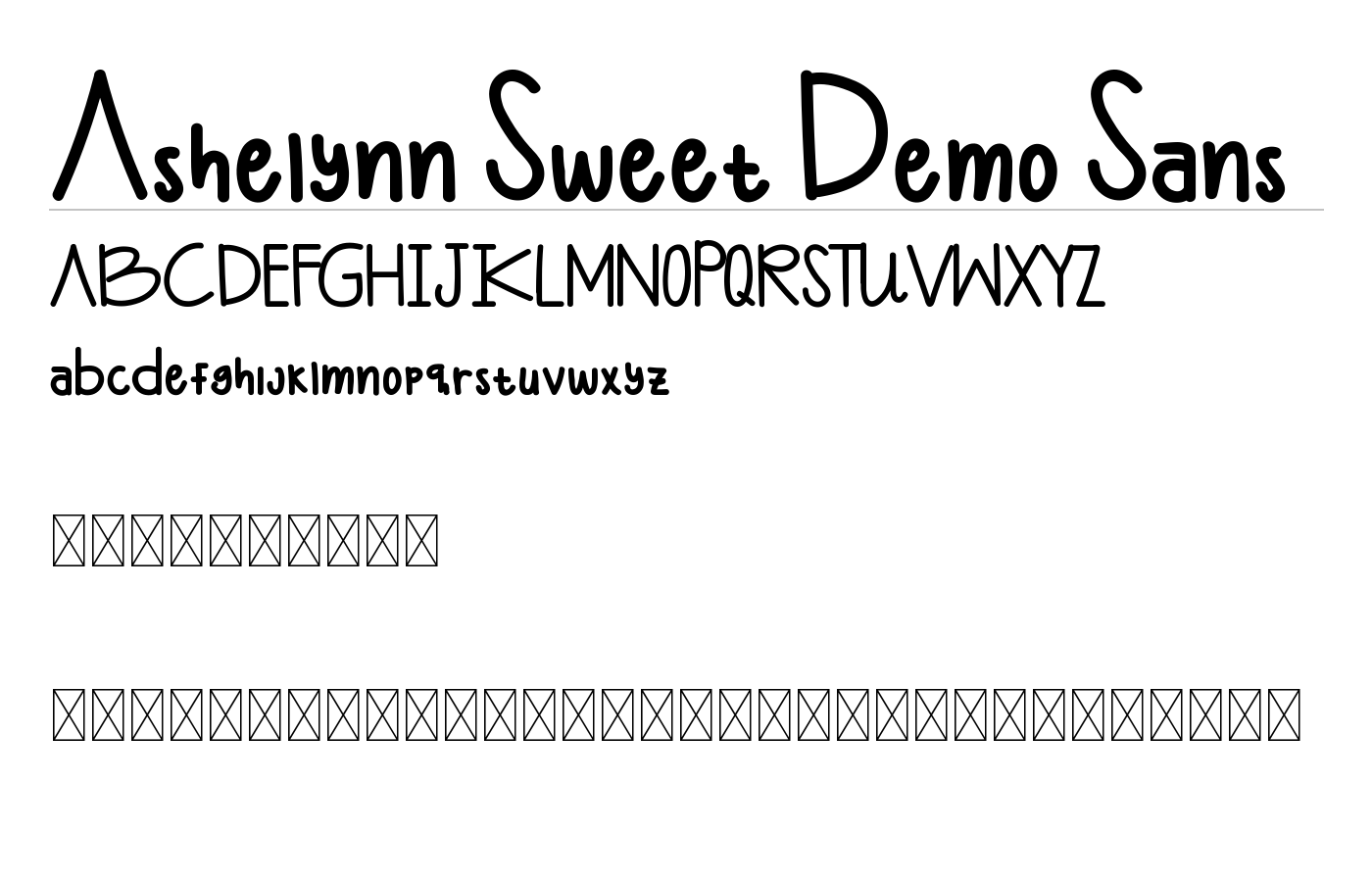
Ashelynn Sweet Demo is a playful, informal sans-serif font featuring rounded strokes and a hand-drawn charm. It has a friendly, casual feel with irregular letter shapes and moderate x-height, making it ideal for creative, fun, or child-focused designs such as logos, invitations, and posters. Its approachable personality shines in contexts where warmth and uniqueness are key.
Ashelynn Sweet Demo Font
About Ashelynn Sweet Demo Font
| Font family | Ashelynn Sweet Demo Font |
| Designer | Saila nurissalma |